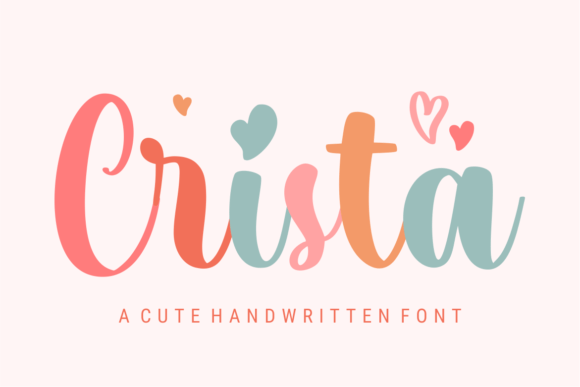
Looking for the perfect font to take your design to the next level? Look no further than Crista Font! This stunning script font, created by jinanstd, is the best font for small embroidery, delivering a delicate, cute, and stylish handwritten look that's sure to capture your audience's attention.
Crafted with precision and attention to detail, Crista Font is perfect for a wide range of applications, from greeting cards and headlines to wedding themes, Christmas, birthdays, quotes, stickers, and overlays on images. With its unique blend of elegance and simplicity, this font will help you create designs that truly stand out.
What sets Crista Font apart from the competition is its versatility. Unlike other script fonts that can be difficult to read or overpower your design, Crista Font strikes the perfect balance between readability and style. It's easy to use in a variety of contexts, making it a must-have tool for designers, artists, and creators of all kinds.
But Crista Font isn't just versatile - it's also emotional. With its cute and stylish handwriting, this font adds a touch of warmth and personality to any design. Whether you're creating a heartfelt message for a loved one or a professional marketing campaign, Crista Font helps you connect with your audience on a deeper level.